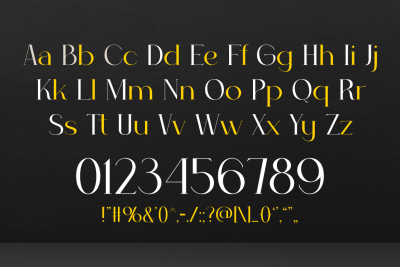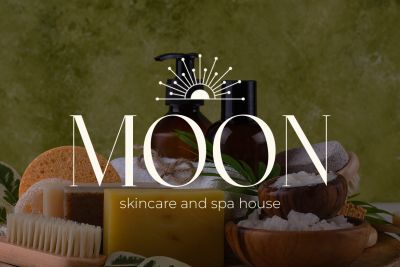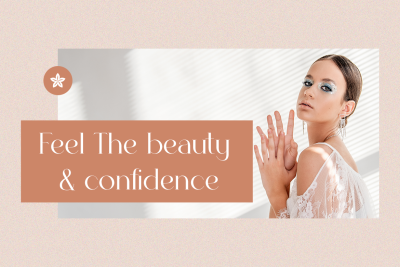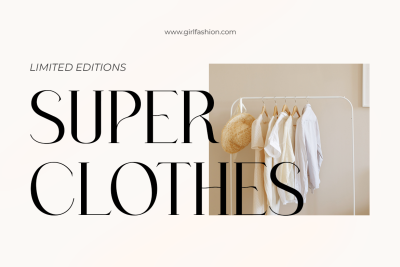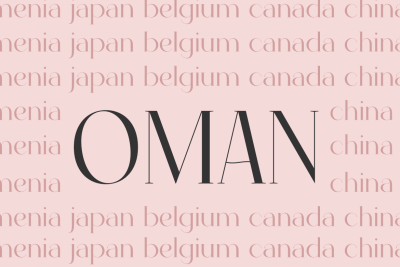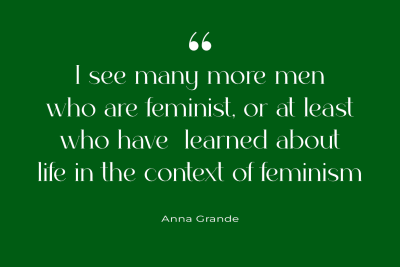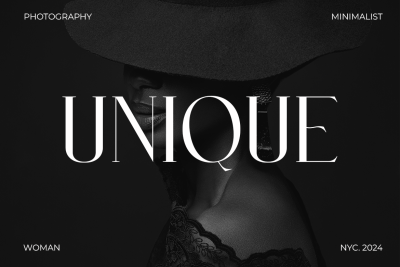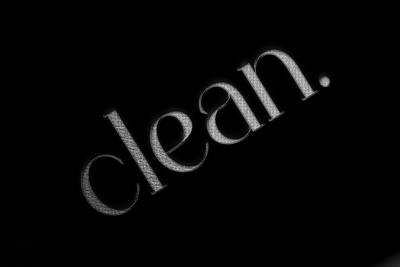
Instagram Font Glastone” is a luxurious, contemporary typeface that combines elegance with simplicity. Designed for a modern yet timeless look, Glastone features sleek, tall letterforms and refined curves. This balance of sophistication and minimalism makes it powerful yet understated. Furthermore, its high-contrast strokes and delicate serifs give it a bold yet graceful appearance, perfect for grabbing attention without overwhelming the viewer.
Glastone suits both digital and print media. Its clean lines and subtle details work well for high-end branding, social media posts, and polished design projects. On Instagram, for example, Glastone shines in captions, headlines, and logos, bringing a professional look to visual content. Additionally, the fontโs versatility allows it to fit various themes, from modern luxury to classic elegance, enhancing any visual with its refined style and making it memorable for viewers seeking a premium aesthetic.
Instagram Font Glastone Ideal For
The Instagram Font Glastone is ideal for brands and individuals looking to elevate their visuals with elegance and professionalism. Luxury fashion brands, beauty products, lifestyle influencers, and jewelry designers all benefit from Glastoneโs sophisticated look. Itโs especially suited for brands aiming to project exclusivity, refinement, and timeless style. Content creators on Instagram, Pinterest, and other visual platforms can use Glastone to create classy, engaging posts and stories.
Moreover, Glastone is a great choice for design agencies, freelancers, and creatives working on branding and advertising projects. Its adaptability makes it suitable for logos, social media graphics, and premium marketing materials. Glastone also enhances wedding stationery, upscale restaurant menus, boutique packaging, and event invitations, adding sophistication to printed materials. Therefore, designers can use Glastone to bring a modern yet classic aesthetic, ensuring visual impact and appeal. Its timeless style remains relevant across media and trends, providing a valuable tool for designers seeking elegance, clarity, and versatility across a wide range of visual projects.